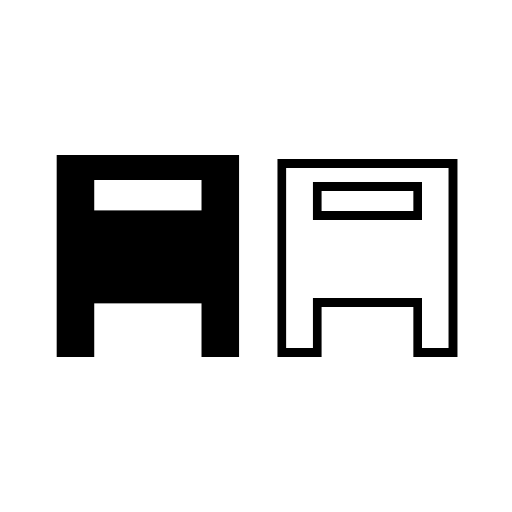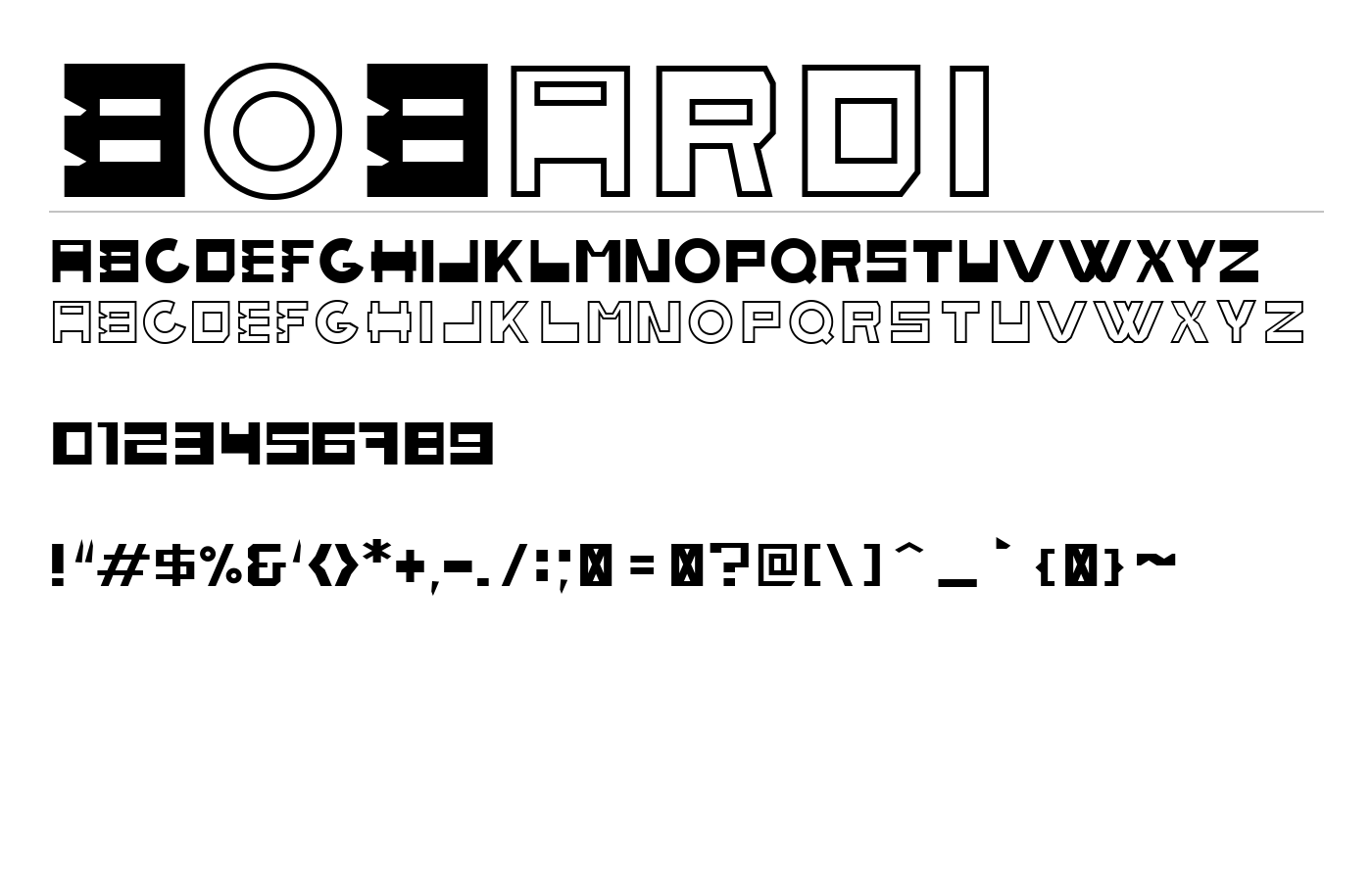
BoBardi is a bold, geometric sans serif font with a distinctive blocky style characterized by sharp angles and strong contrasts between solid and outlined forms. Its unique design blends modernity with a slightly futuristic, industrial feel, making it ideal for eye-catching headlines, logos, and branding where a bold and innovative presence is desired. This font works particularly well in creative and tech-focused projects that seek to communicate strength and individuality.
BoBardi Font
About BoBardi Font
| Font family | BoBardi Font |
| Designer | Ion Neto, Lara Benedet, Nicholas Auler |